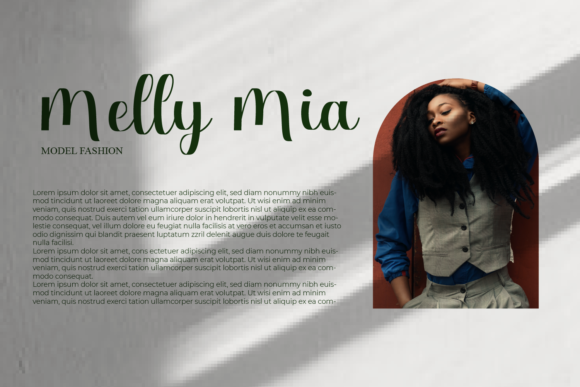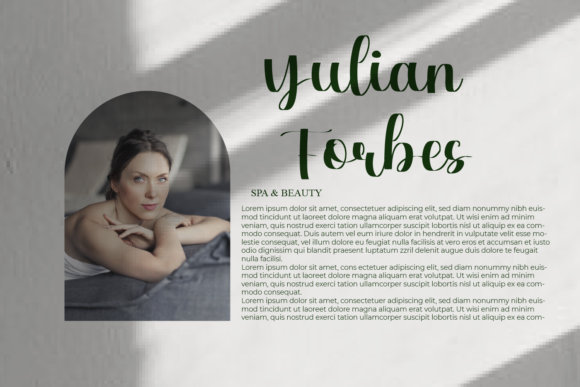
Introduction to Leutgard Mathilda Font
You know that moment when a design project just clicks? The fonts, colors, and textures all come together in perfect harmony, and you feel like a creative genius? For many designers, that moment is often the result of using the right font. And one font that can help you achieve that perfect balance is the Leutgard Mathilda Font.
This elegant and delicate font is more than just a pretty face – it’s a valuable resource for designers looking to add a touch of sophistication to their creative projects. Whether you’re working on a wedding invitation, a thank you card, or a business logo, the Leutgard Mathilda Font is sure to impress. And the best part? It’s available for free download, making it a high-quality design resource that won’t break the bank.
With its transparent background and versatile design, the Leutgard Mathilda Font is the perfect addition to any creative project. Whether you’re a seasoned designer or just starting out, this font is sure to become a go-to resource for all your design needs.
Key Features of Leutgard Mathilda Font
- Leutgard Mathilda Font is available in a range of sizes, making it suitable for various design applications, from small text to large headings.
- High-resolution design ensures crisp and clear text display, even at large sizes or in high-magnification contexts.
- Unique characteristics, such as its elegant and refined style, set it apart from other fonts and make it a valuable addition to any design resource collection.
Honest Review: Leutgard Mathilda Font
As a designer, I’m always on the lookout for high-quality design resources to elevate my creative projects. Recently, I stumbled upon the Leutgard Mathilda Font, and I’m excited to share my honest review.
- ✨ The font is incredibly versatile and can be used for a wide range of creative projects, from headers to body text.
- ✨ The font features a transparent background, allowing for seamless integration with any design element.
- ⚠️ The font’s weight range is somewhat limited, which may not be ideal for projects requiring multiple weight options.
- ⚠️ The font’s legibility can be affected by the size and resolution of the text.
Overall, I’m impressed with the Leutgard Mathilda Font’s quality and versatility. While it may have some limitations, it’s a great choice for designers looking for a free, high-quality font to add to their design resource arsenal.
To get the most out of Leutgard Mathilda Font, use it in conjunction with a transparent background to create a clean and modern design. You can also experiment with different font sizes and styles to add visual interest to your project.
Leutgard Mathilda Font is commonly used in business cards, marketing materials, and presentations. It’s also a popular choice for creative projects that require a high level of sophistication and style.
Alternatives to Leutgard Mathilda Font
Oswald is a high-quality sans-serif font ideal for creative projects that require a clean and modern look. It’s perfect for designs that need a transparent background and can be easily customized to fit your design resource needs.
When to use: Oswald is suitable for designs that require a bold and edgy feel, such as posters, flyers, and magazine layouts.
Comparison to Leutgard Mathilda Font: Oswald has a more modern and futuristic look compared to the elegant and classic feel of Leutgard Mathilda Font.
Q: Can I use the Leutgard Mathilda Font with a transparent background?
Yes, the Leutgard Mathilda Font supports transparent backgrounds, making it perfect for use in creative projects that require a high level of design flexibility. When using the font with a transparent background, you can easily layer it over other design elements, such as images or graphics, to create a unique and eye-catching visual effect.